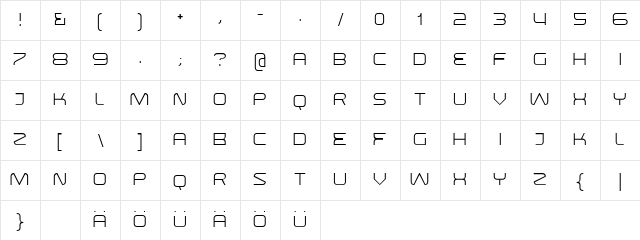
Swisz Thin
Design Context for Swisz Typeface
Swisz offers clean, dependable letterforms without strong stylistic allegiance, making it a practical choice for designers who need flexibility. The delicate stroke weight brings airiness and refinement to layouts.